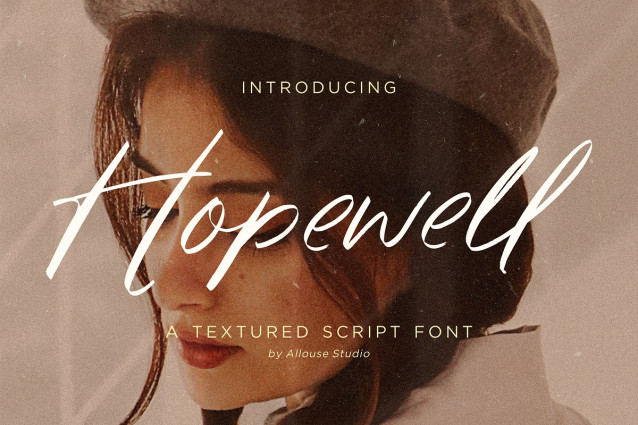
Hopewell Script Font
Hopewell Script Font is perfect for any titles, logo, product packaging, branding project, megazine, social media, wedding, or just used to express words above the background. Hopewell also come with Multi-Lingual Support.